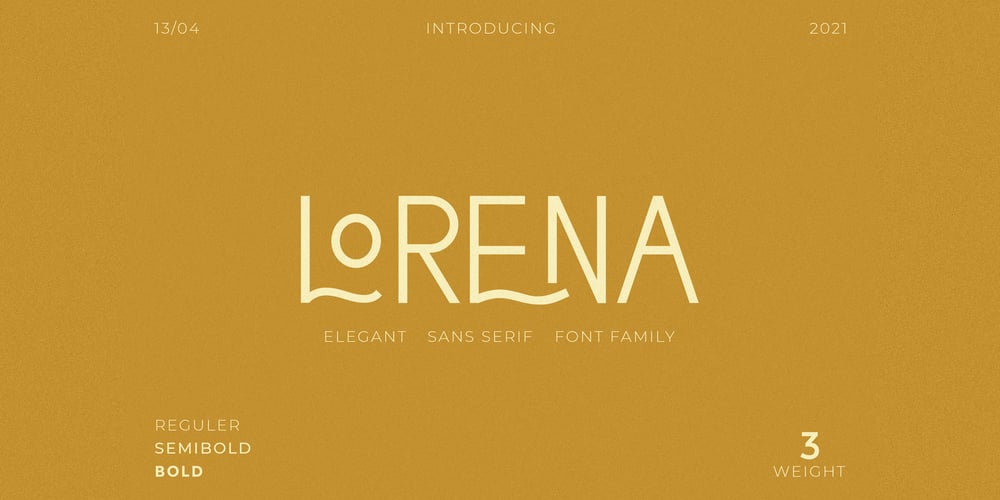
CCS Lorena
CCS Lorena font
CCS Lorena Font Family was designed by Kurt Harahap and published by Creative Corner Studio. CCS Lorena contains 3 styles and family package options. CCS Lorena is a Minimalist Modern Elegant font with beautiful ligatures, tons of special alternative glyphs, ornament and multilingual support. It’s a very versatile font that works great in large and small sizes. CCS Lorena Sans is perfect for branding projects, Logo design, Clothing Branding, product packaging, magazine headers, or simply as a stylish text overlay to any background image.